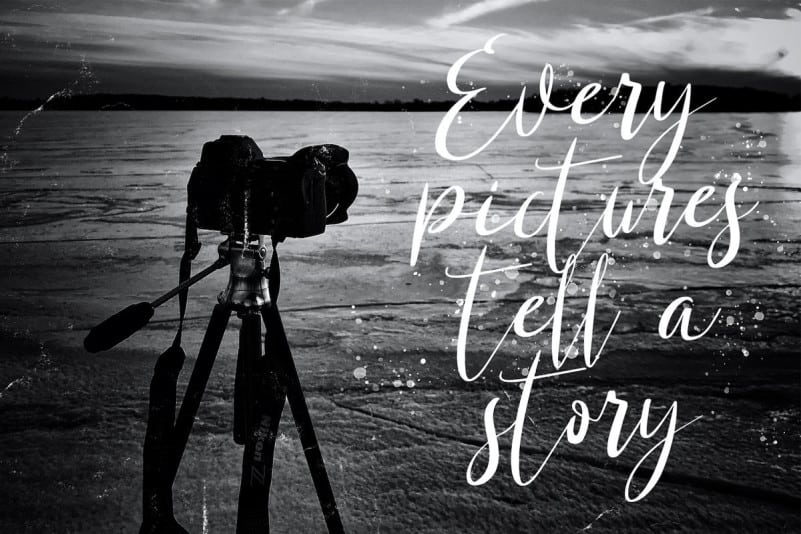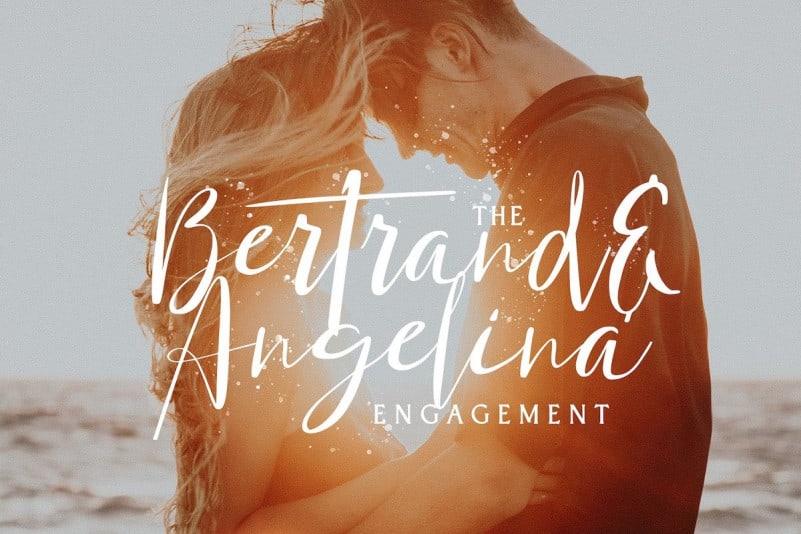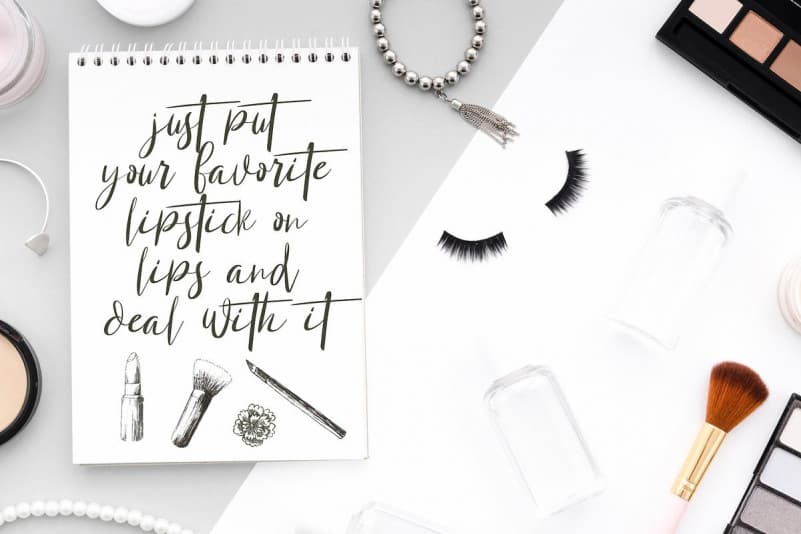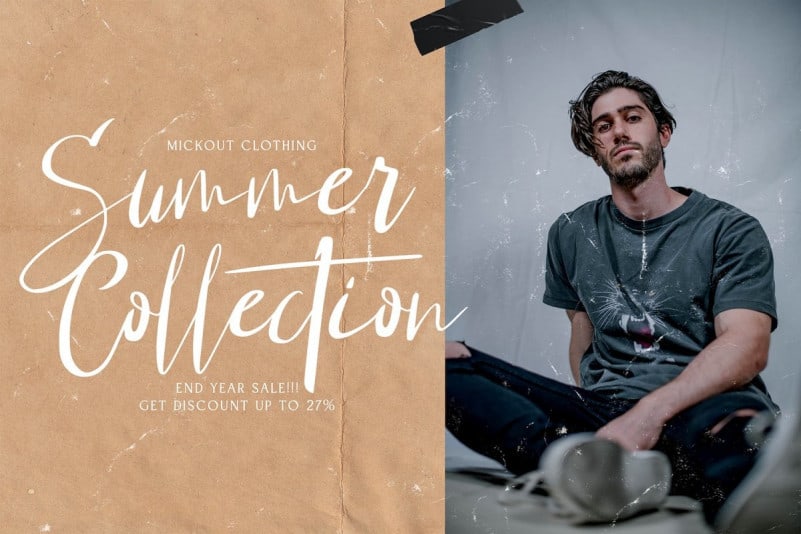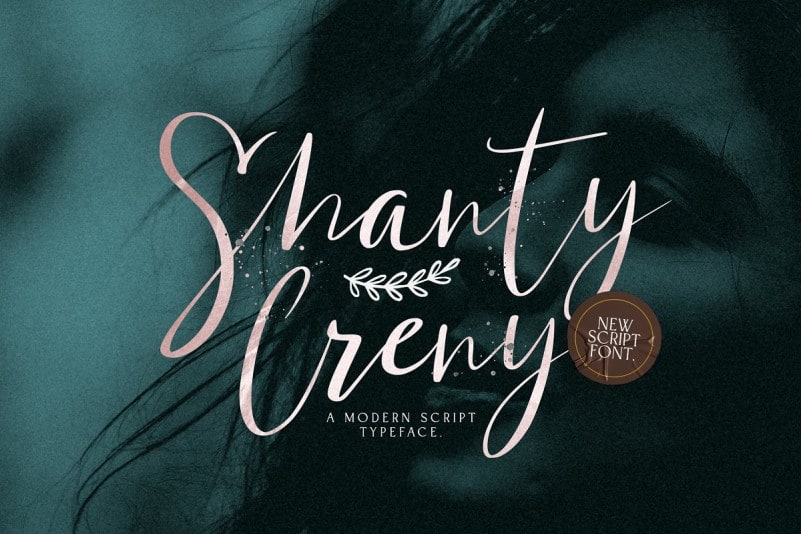
Shanti Creny Script Font is a modern handwritten script font can make your text appear elegant, luxurious, and modern!. it’s a Modern Handwritten Script font can make your text appear elegant, luxurious, and modern! It will elevate a wide range of design projects to the highest level, be it branding, headings, wedding designs, invitations, signatures, logos, labels, and much more!